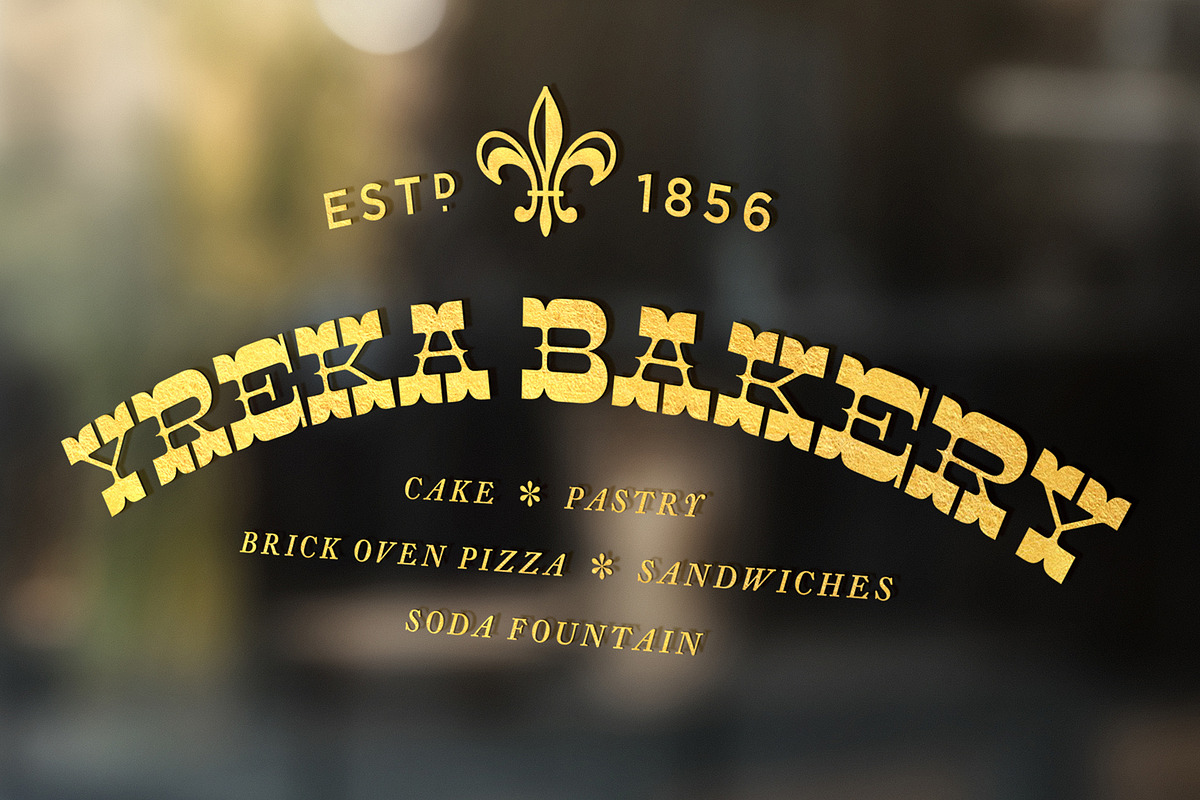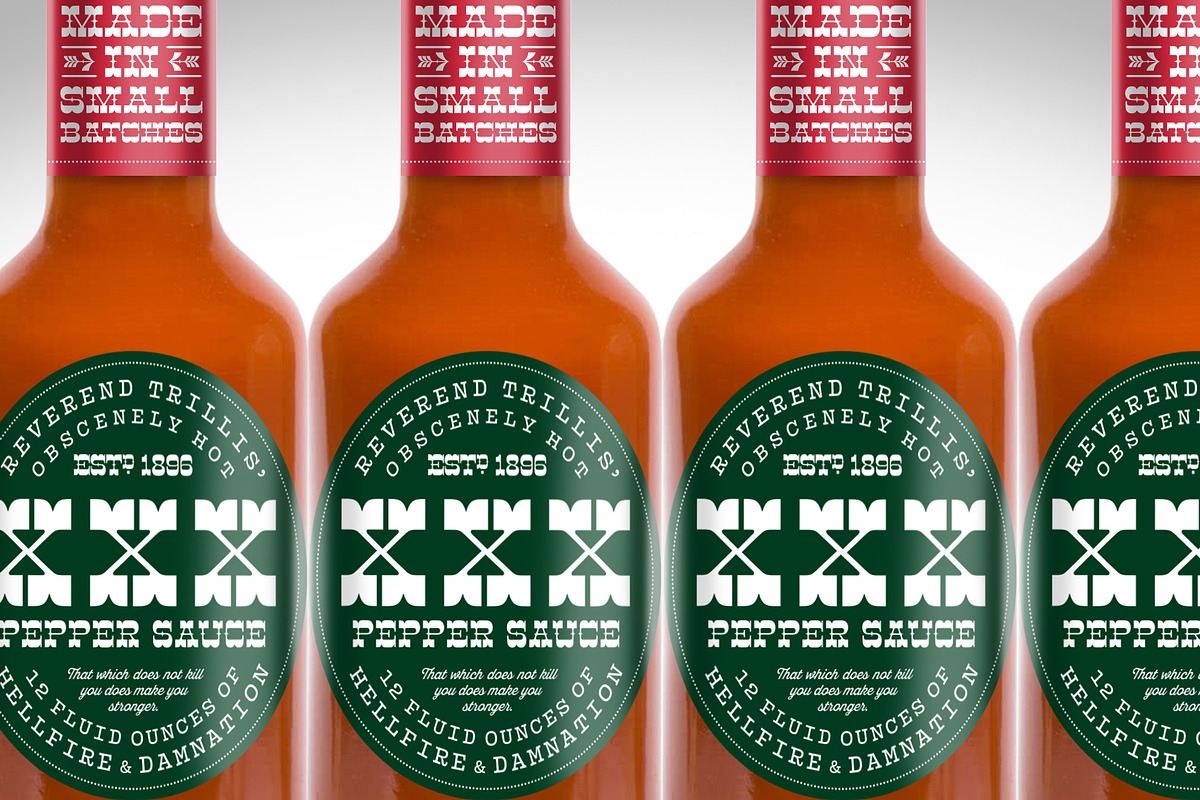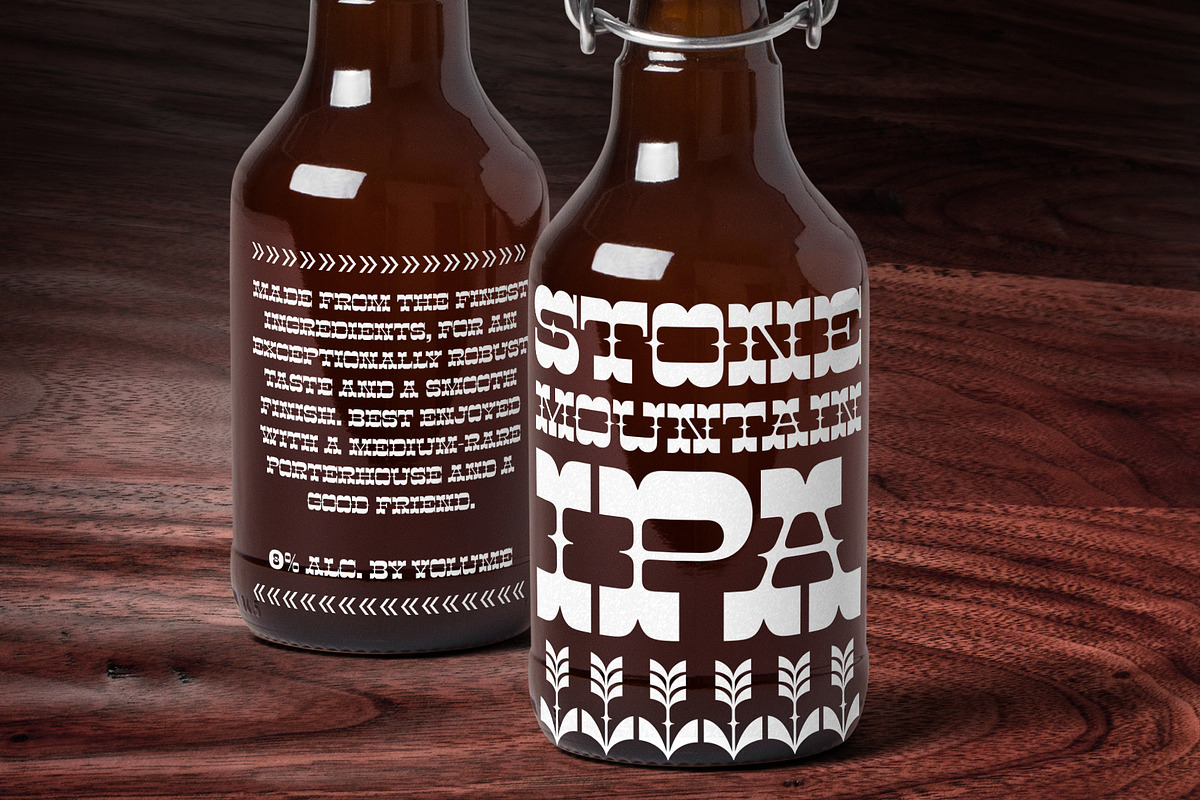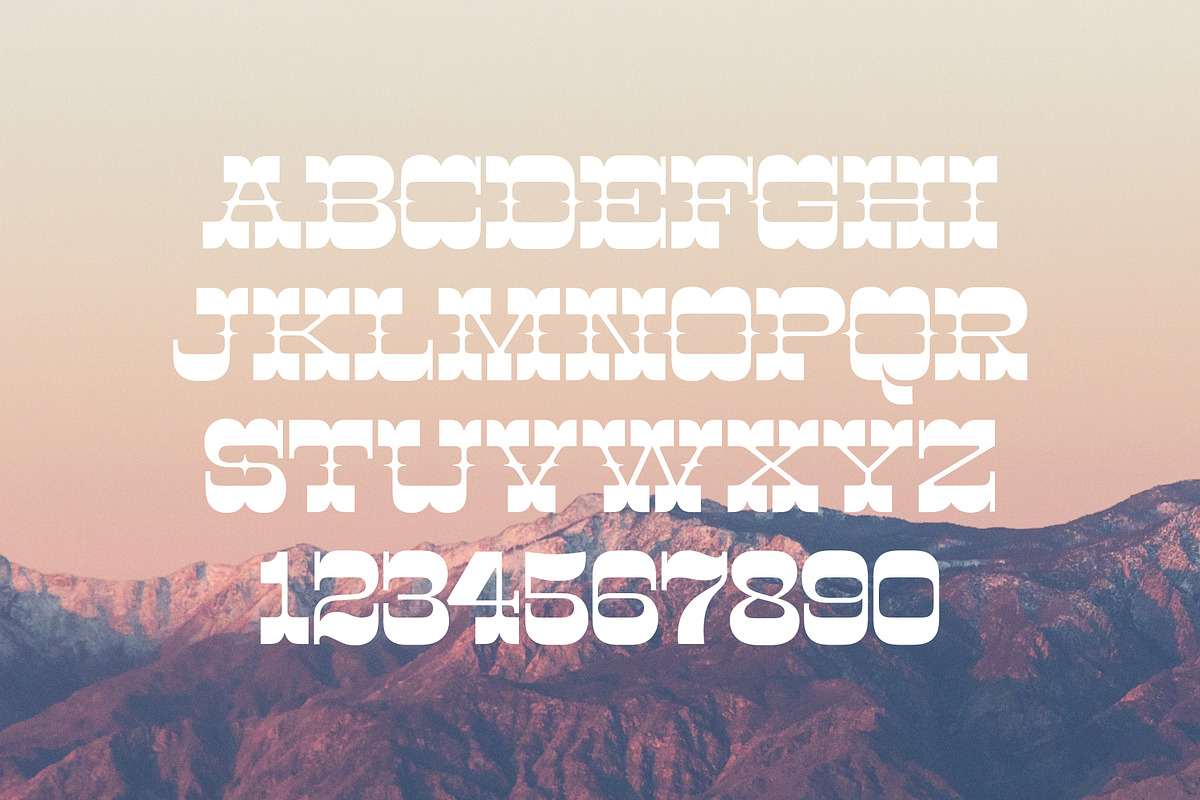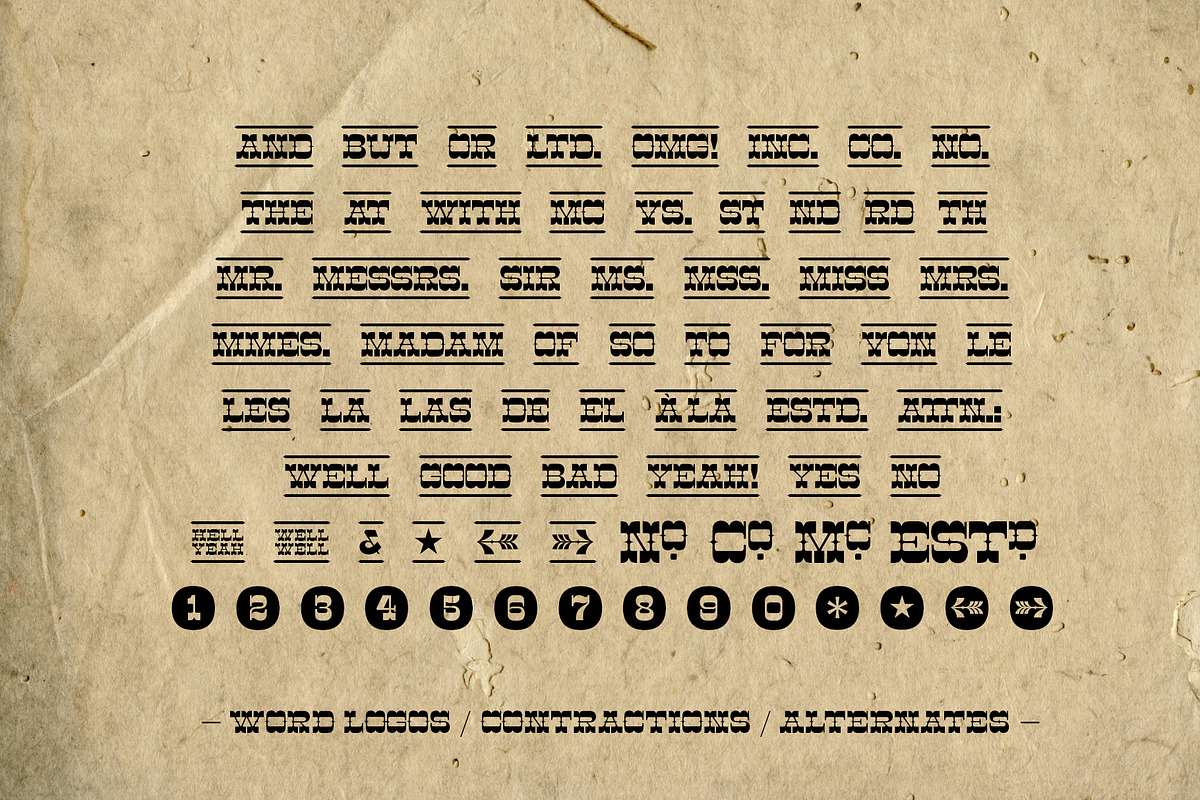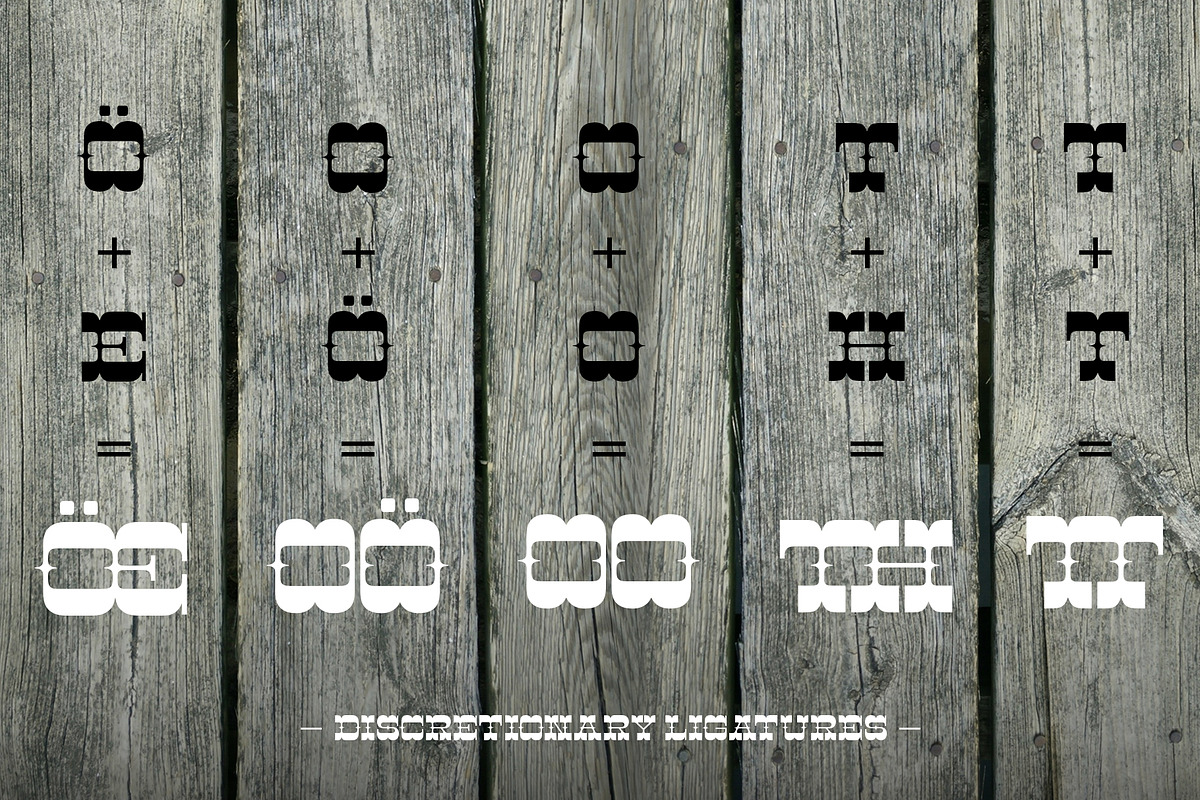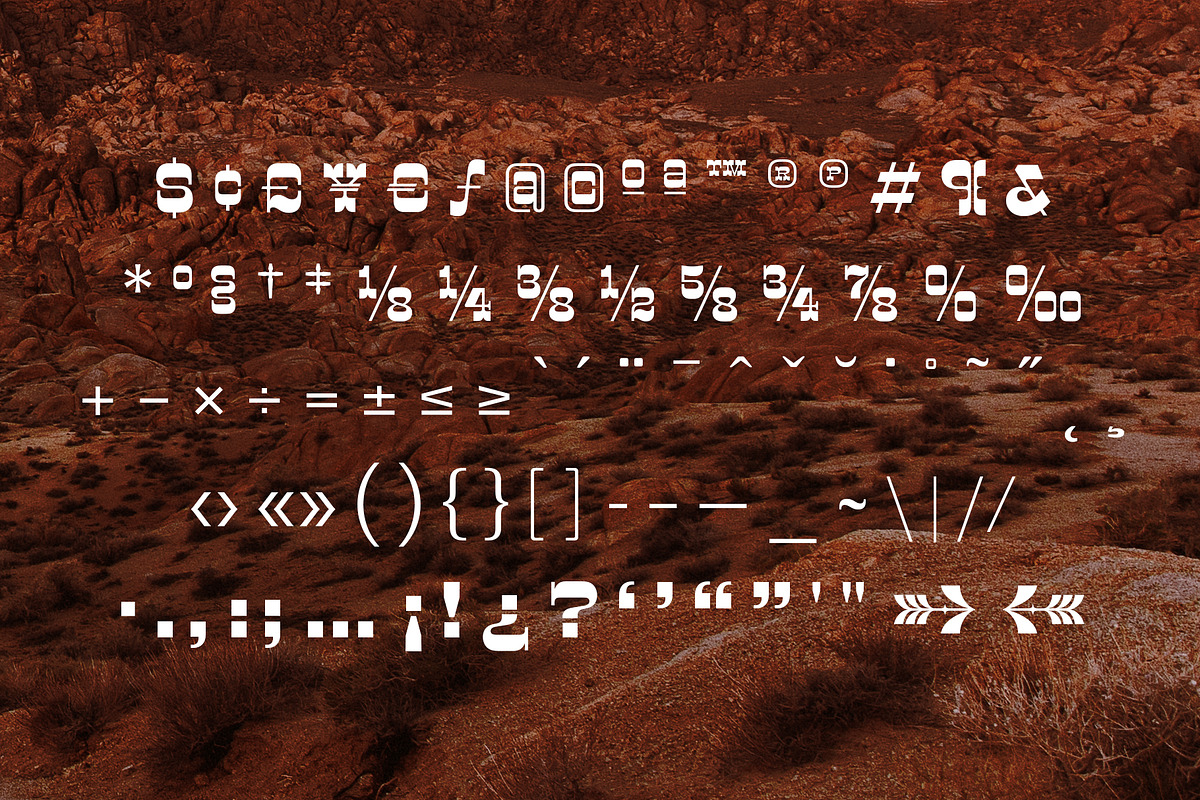
Cayuse Display Font + Word Logos
Cayuse is a super thick, super dense, super slab serif font that's great for a wide variety of design application. Dress it up for your premium boutique food packaging, or dress it down for a gritty addition to your editorial designs. When you need a western-inspired font with unbeatable boldness and texture, saddle up and ride with Cayuse.